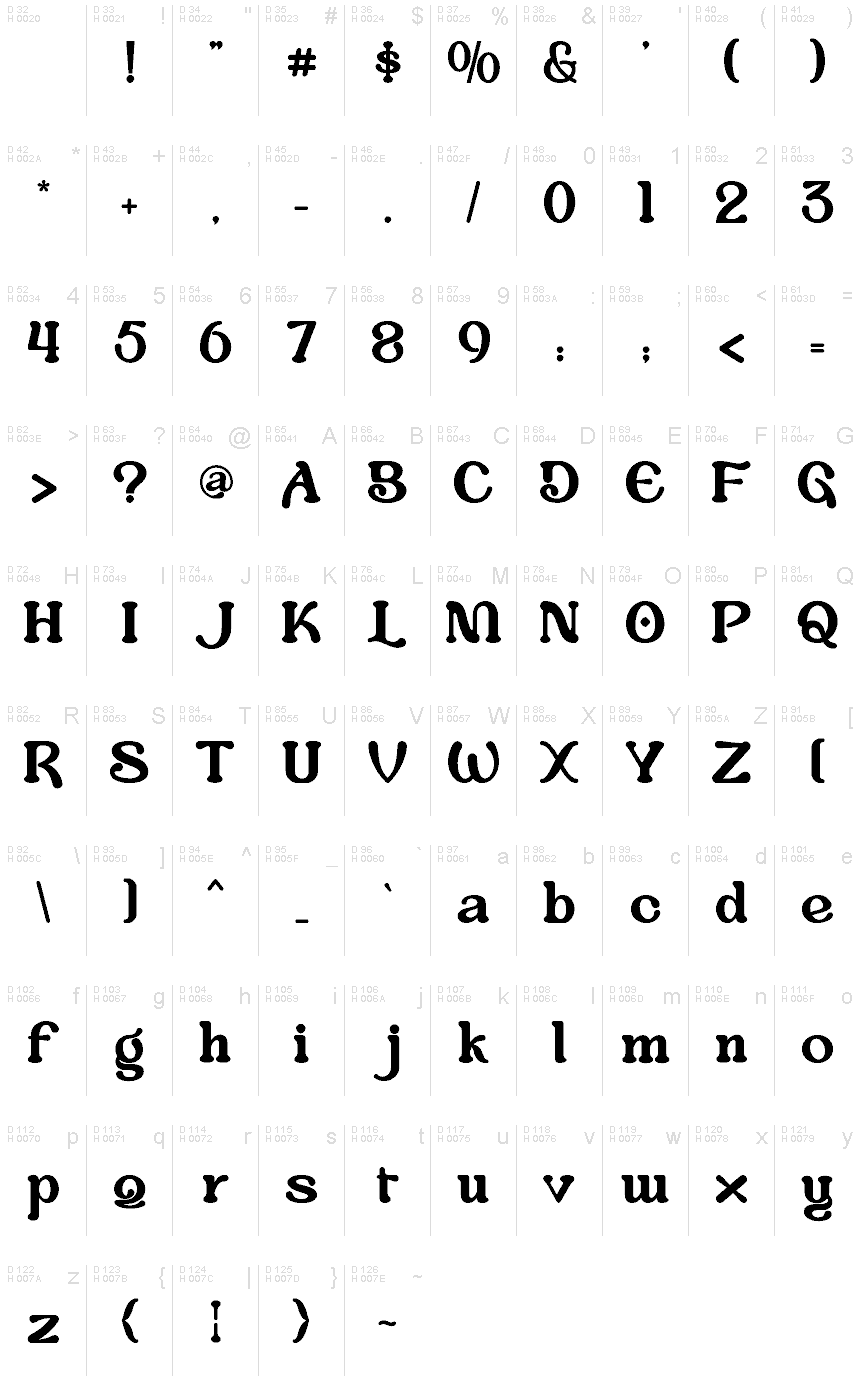
Aloevera
Aloevera by Salamahtype.com brings a charming blend of nostalgia and whimsy to the table. With its cute retro flair, this display font exudes a friendly and engaging personality, perfect for projects that demand a touch of warmth. Its semi-expanded width offers excellent readability while maintaining an inviting character.
Ideal for branding, packaging, or any creative endeavor aiming to strike a balance between vintage charm and modern simplicity, Aloevera promises to sprinkle your designs with delightful appeal.